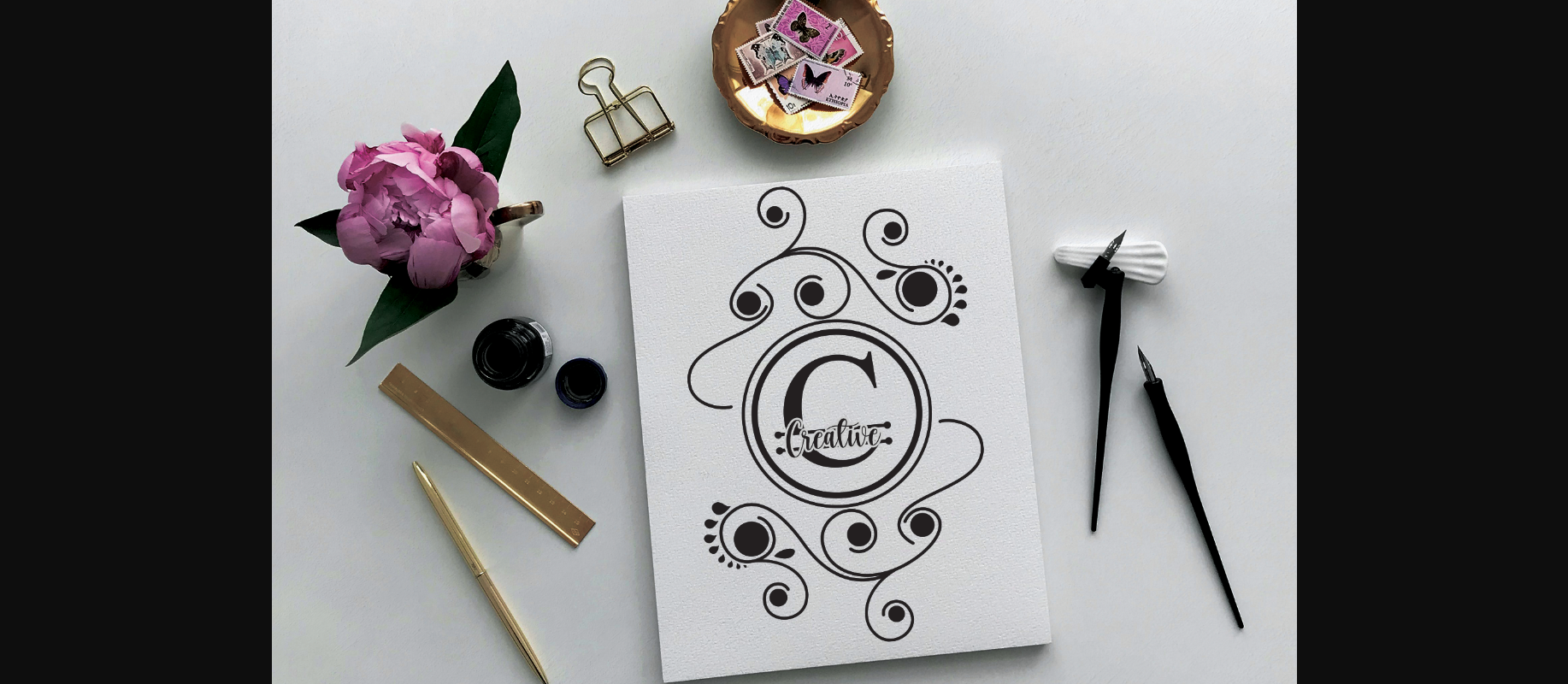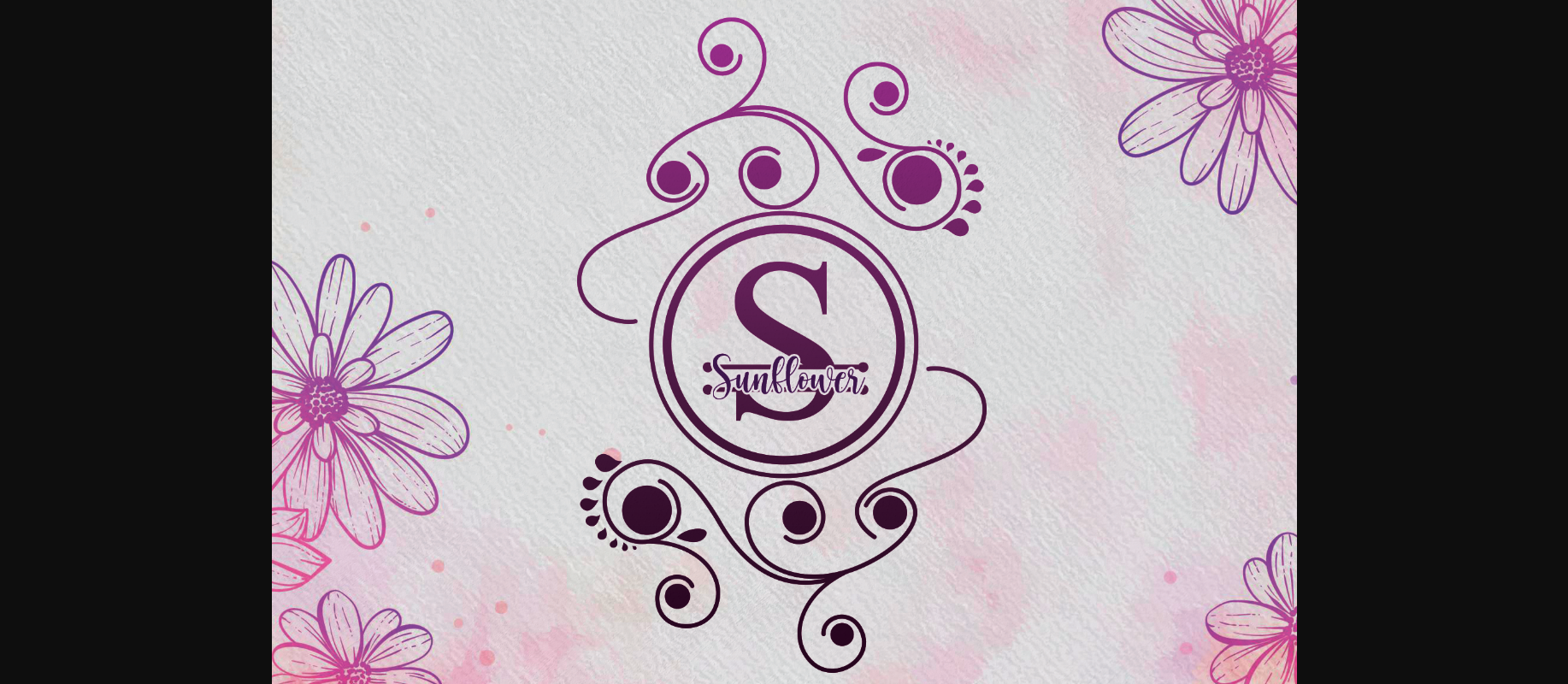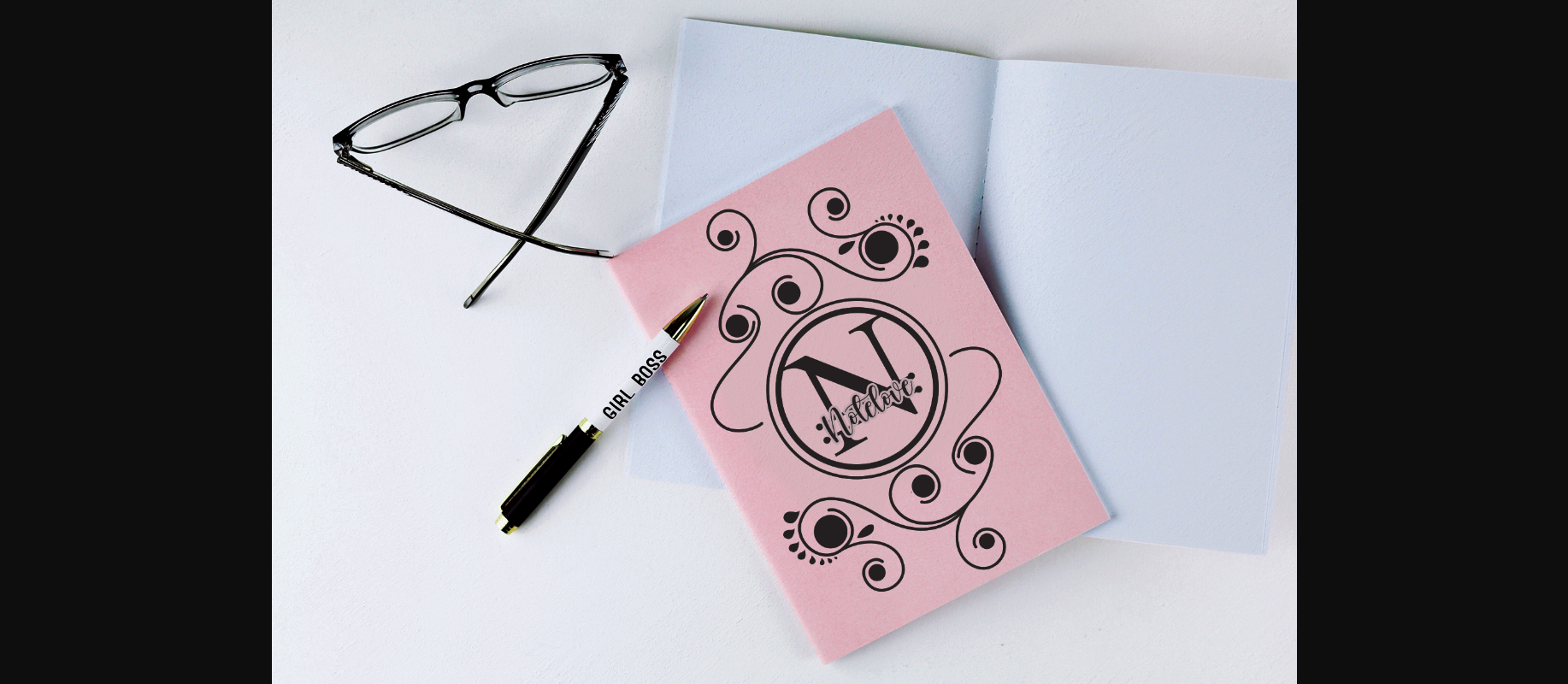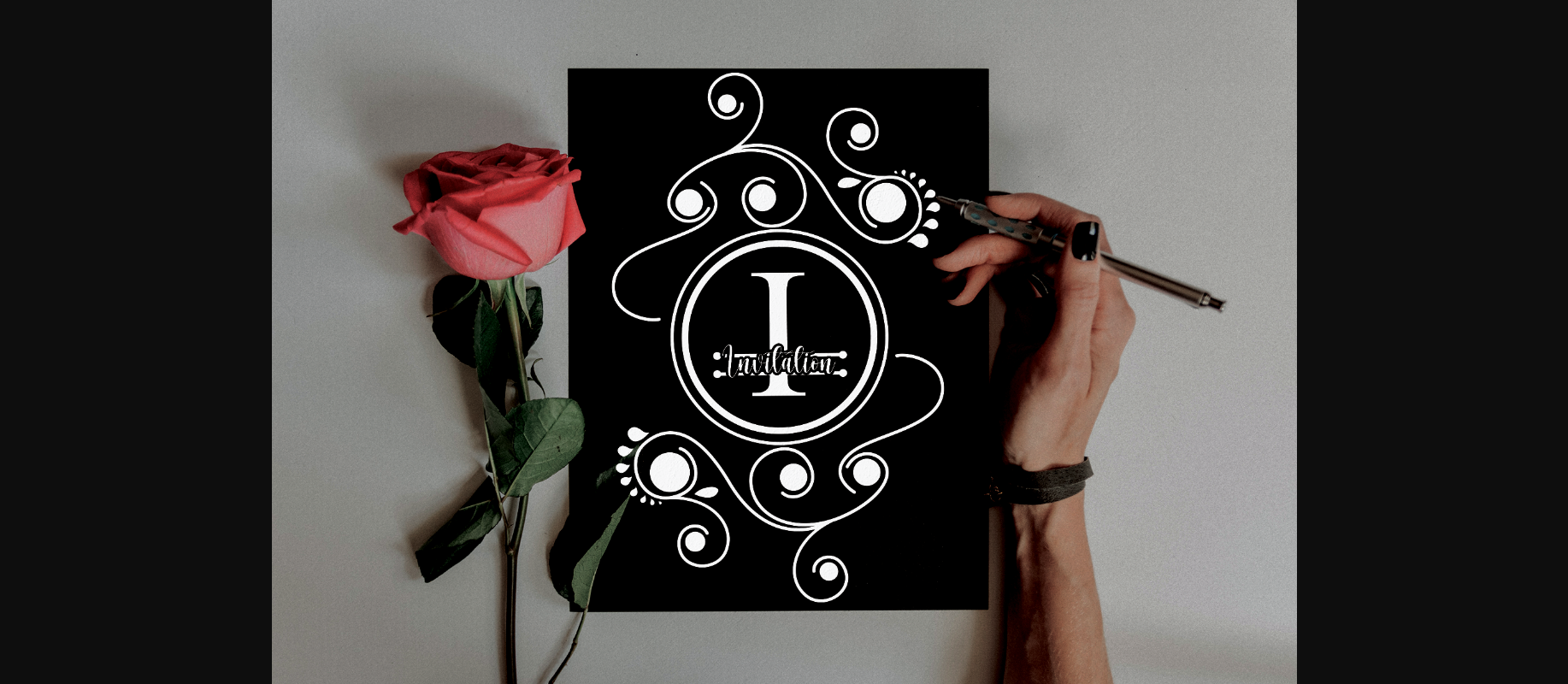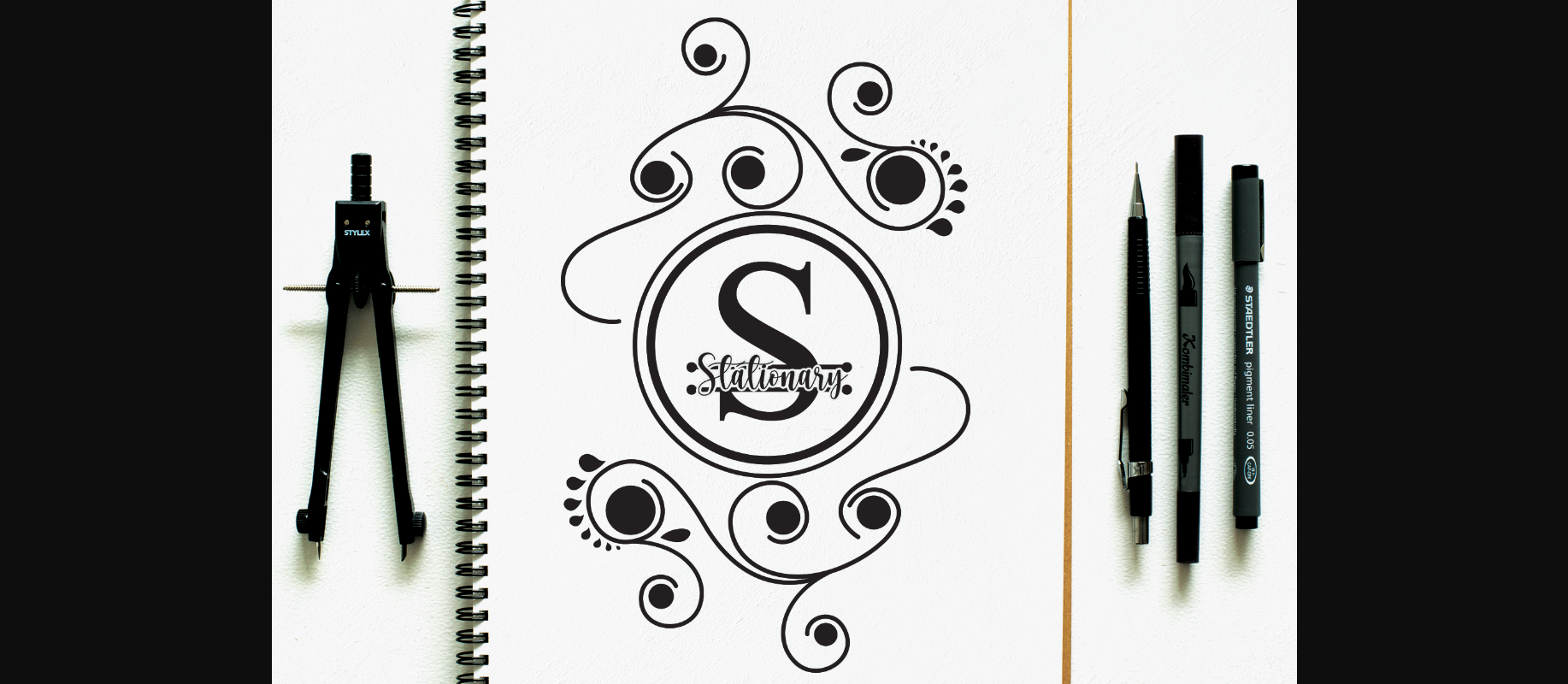
Superior Font
About Superior Font
Superior is a delicate and highly detailed decorative font. Add this beautiful looking font to each of your love letters, wedding invitations or favorite design ideas, and you will be astounded by the outcome.